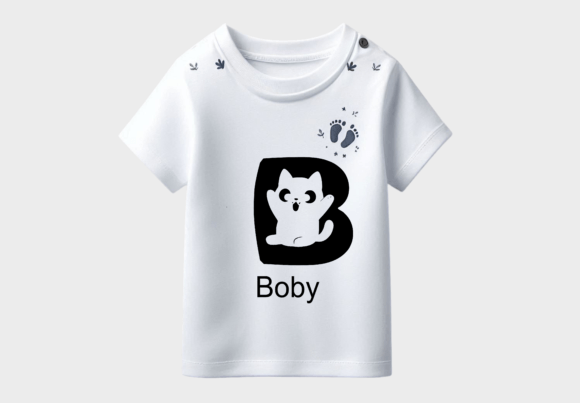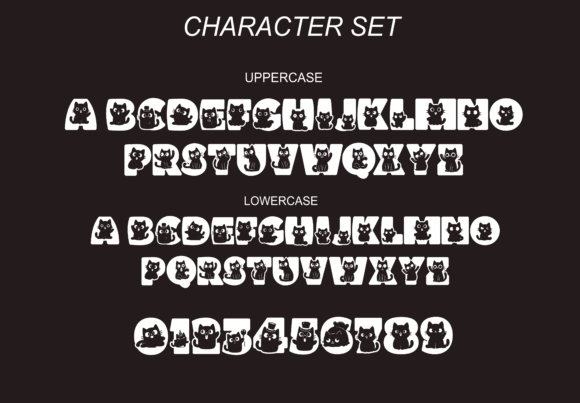
Introduction to Pampered Cat Font
Have you ever stumbled upon a font that radiates pure joy and makes you feel like you’re walking on sunshine? For many designers, that moment is when they first lay eyes on the Pampered Cat Font. Its whimsical eccentricity and uncontainable joy are infectious, making it the perfect addition to any creative project.
Whether you’re working on a high-quality design that requires a robust typeface or simply need a design resource that exudes playfulness, the Pampered Cat Font is an excellent choice. With its transparent background and captivating qualities, it effortlessly blends with any shape, amplifying legibility and visual appeal. And the best part? It’s available for free download, making it an invaluable asset for designers of all levels.
So, let’s dive into the wonderful world of Pampered Cat Font and explore what makes it a valuable addition to your design arsenal.
Key Features of Pampered Cat Font
- High-quality design: The Pampered Cat Font is a beautifully crafted, unique design resource perfect for creative projects.
- Transparent background: The font’s transparent background allows for easy customization and versatility in design.
- Unique characteristics: The Pampered Cat Font features a playful, whimsical design that is sure to add a touch of personality to any creative project.
Honest Review: Pampered Cat Font
I recently had the chance to work with the Pampered Cat Font, and I must say it was a delightful experience. This font is perfect for any creative project that needs a touch of whimsy and playfulness. The high-quality design is evident in every letter, making it a great resource for designers.
- ✨ The transparent background option is super handy for creating designs with a clean and minimalist look.
- ✨ The font is highly customizable, making it easy to adjust the size and style to fit your needs.
- ⚠️ The font may not be suitable for formal or professional projects, as it has a more playful tone.
- ⚠️ The font may not work well with complex designs or layouts, as it can be a bit delicate.
Overall, I was impressed with the Pampered Cat Font. It’s a great addition to any designer’s toolkit, and I would definitely recommend it for creative projects that need a bit of personality. Just be aware of its limitations, and use it wisely!
Design Tips
For the best results, use the Pampered Cat Font on a transparent background and in a high-quality design project.
Consider using the font in a creative project, such as a greeting card or social media graphic.
The Pampered Cat Font is ideal for:
- Social media graphics and ads.
- Printable art and home decor.